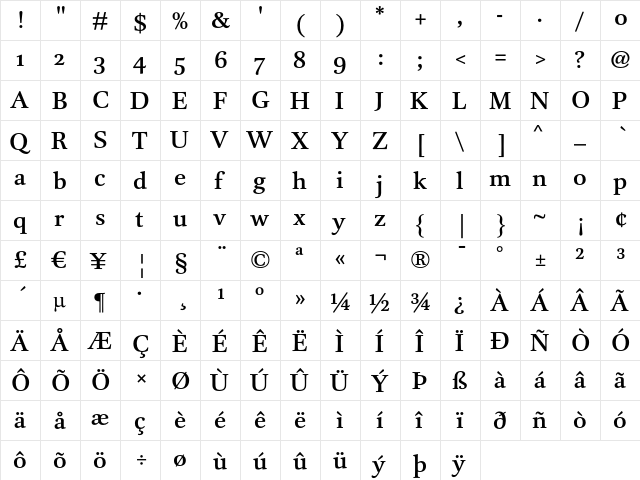
DTLUnicoST Medium
Design Context for DTLUnicoST Typeface
DTLUnicoST takes a measured approach to typography — its balanced proportions and neutral character make it a reliable workhorse for both digital and print work.
Pro Tip: Use DTLUnicoST in both headline and body roles to test its range before committing to a single application.